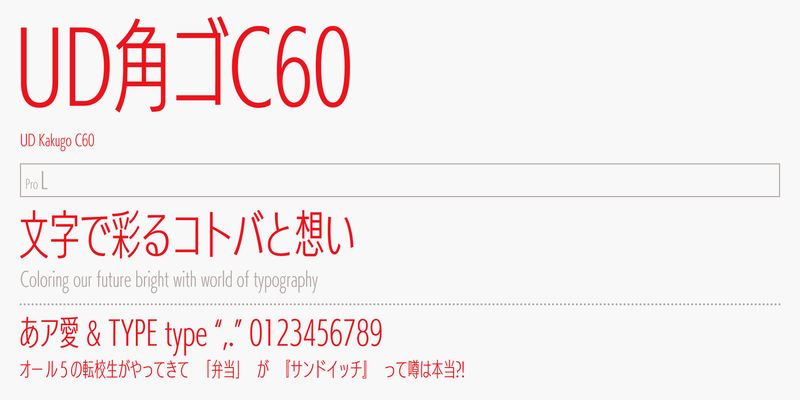
FOT-UDKakugoC60 Pro Font Free Download is a highly legible Japanese Gothic (sans-serif) typeface developed by Fontworks under their Universal Design (UD) series. Designed for optimal clarity and accessibility, this font is perfect for educational content, public signage, product labeling, user interfaces, and any design where readability across all ages and visual abilities is a top priority.
FOT-UDKakugoC60 Pro Font Free Download features balanced proportions, open counters, and consistent stroke widths. The "C60" weight offers a medium-light tone that works well for both body text and subtitles, ensuring clear presentation without overwhelming the reader. As a Pro version, it includes a full Adobe-Japan1-4 character set with wide support for kanji, kana, and Latin scripts—ideal for multilingual layouts.
This font is part of a trusted family of typefaces designed with accessibility in mind, making it an excellent choice for universal design standards in both print and digital environments.